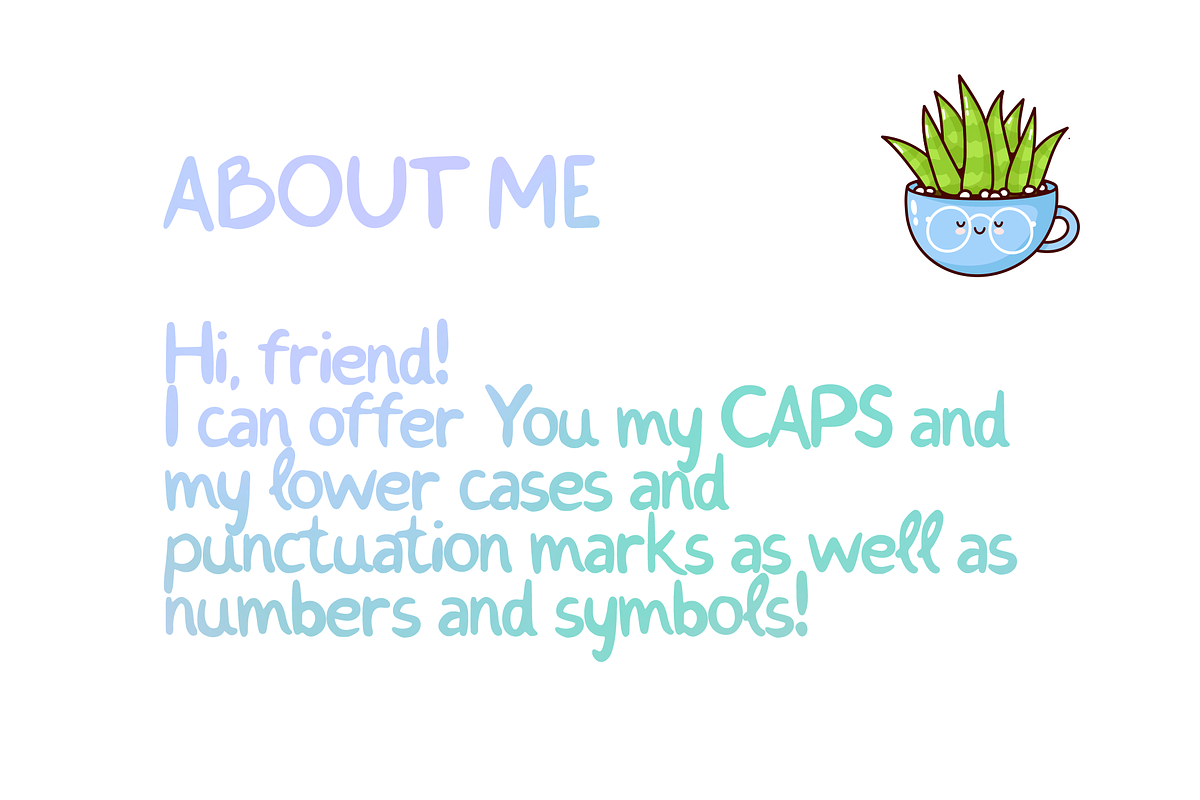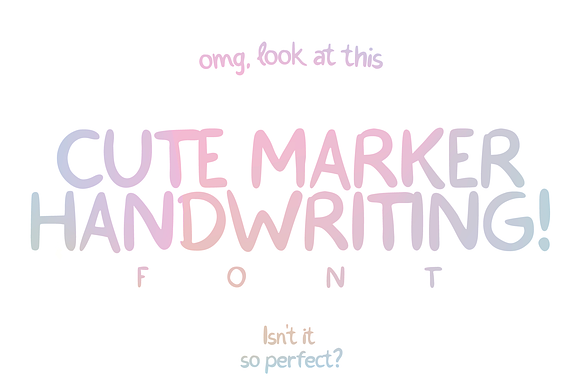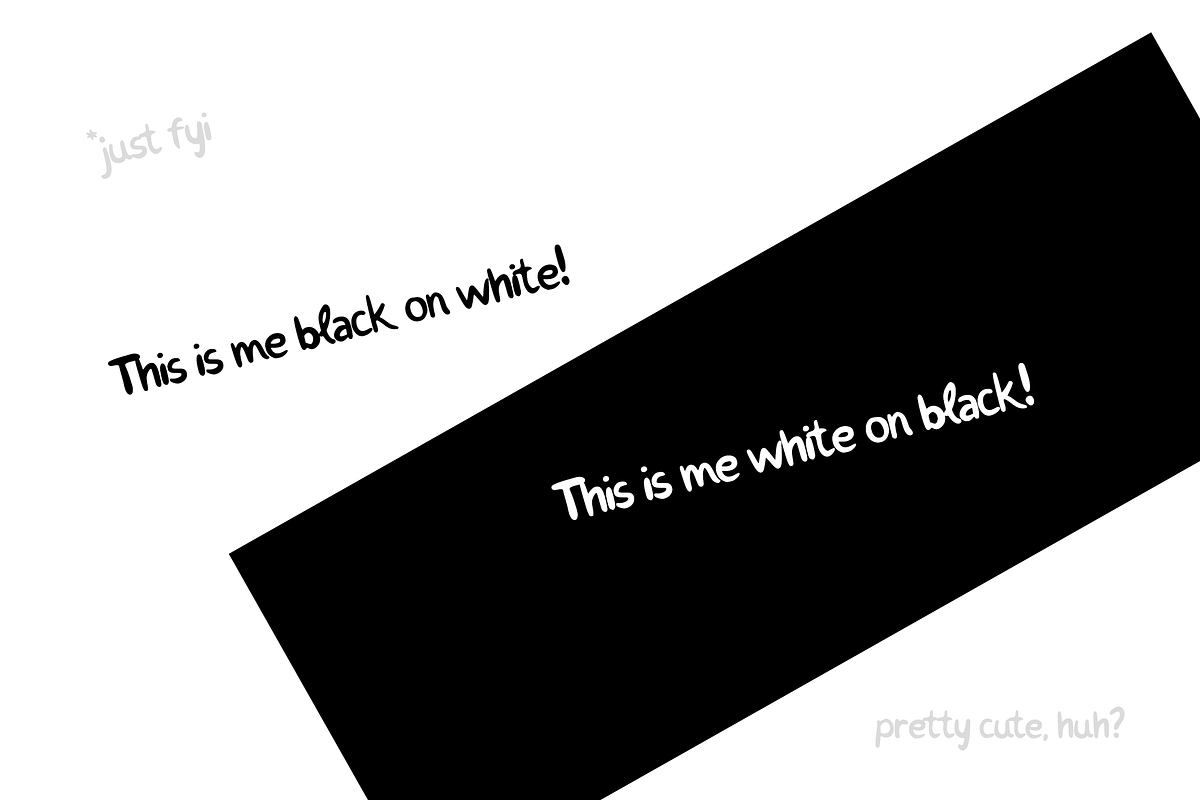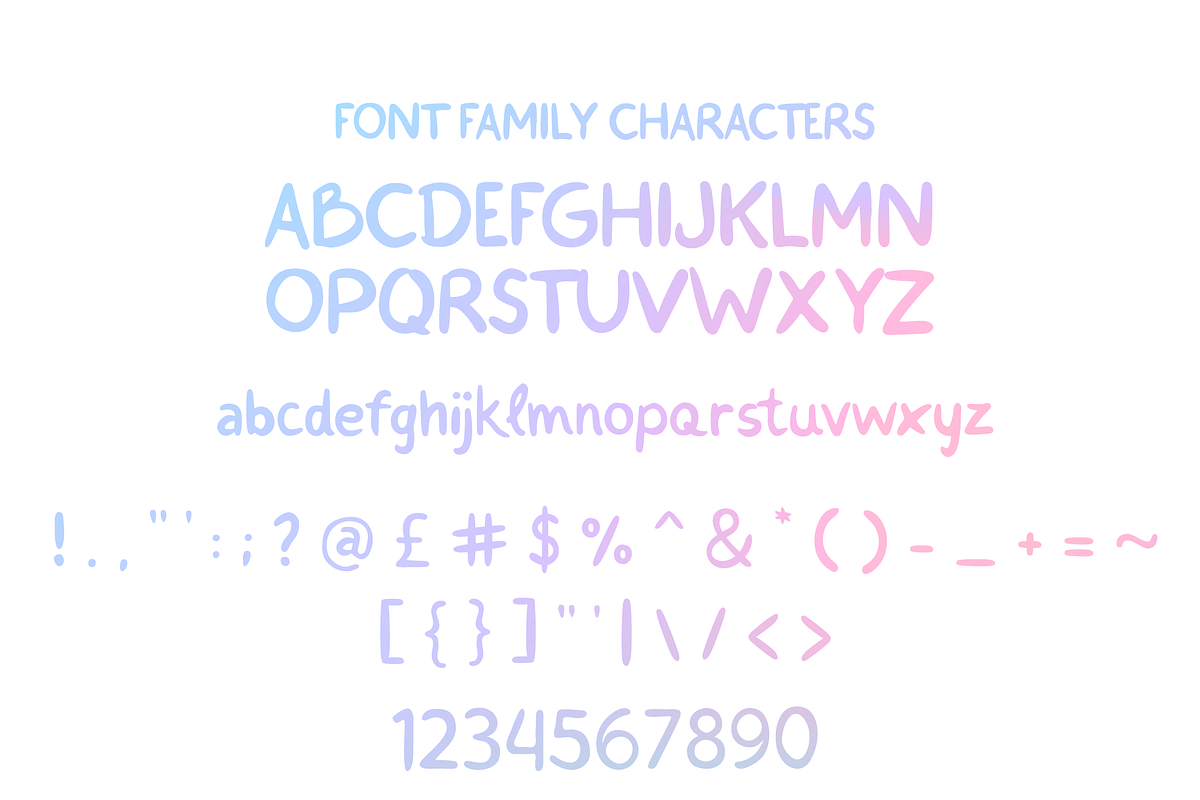
Cute Marker Handwriting Font
Cute Marker Handwriting Font // for any creative and fun use! ✨ Cute, smooth and there for you when you need comfort!
Great for your quote or text posts, thumbnail titles for your new youtube video, lists and also friendly for children's books!
Cute Marker Handwriting Font by Arta's Workspace fits naturally into Branding, posters, packaging, typography.